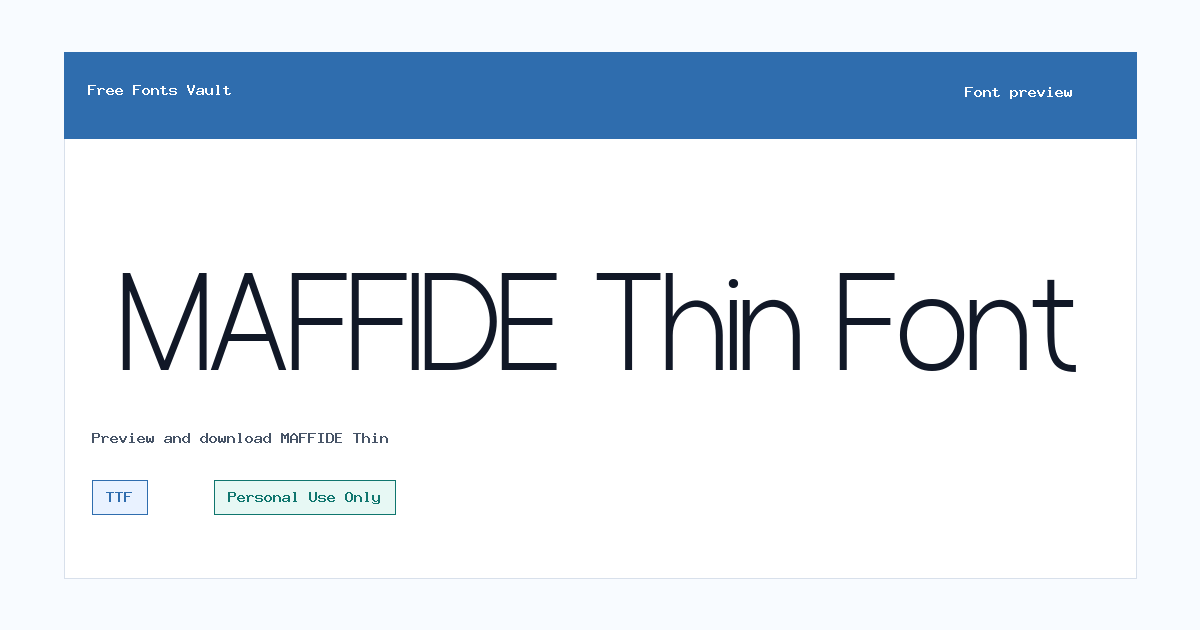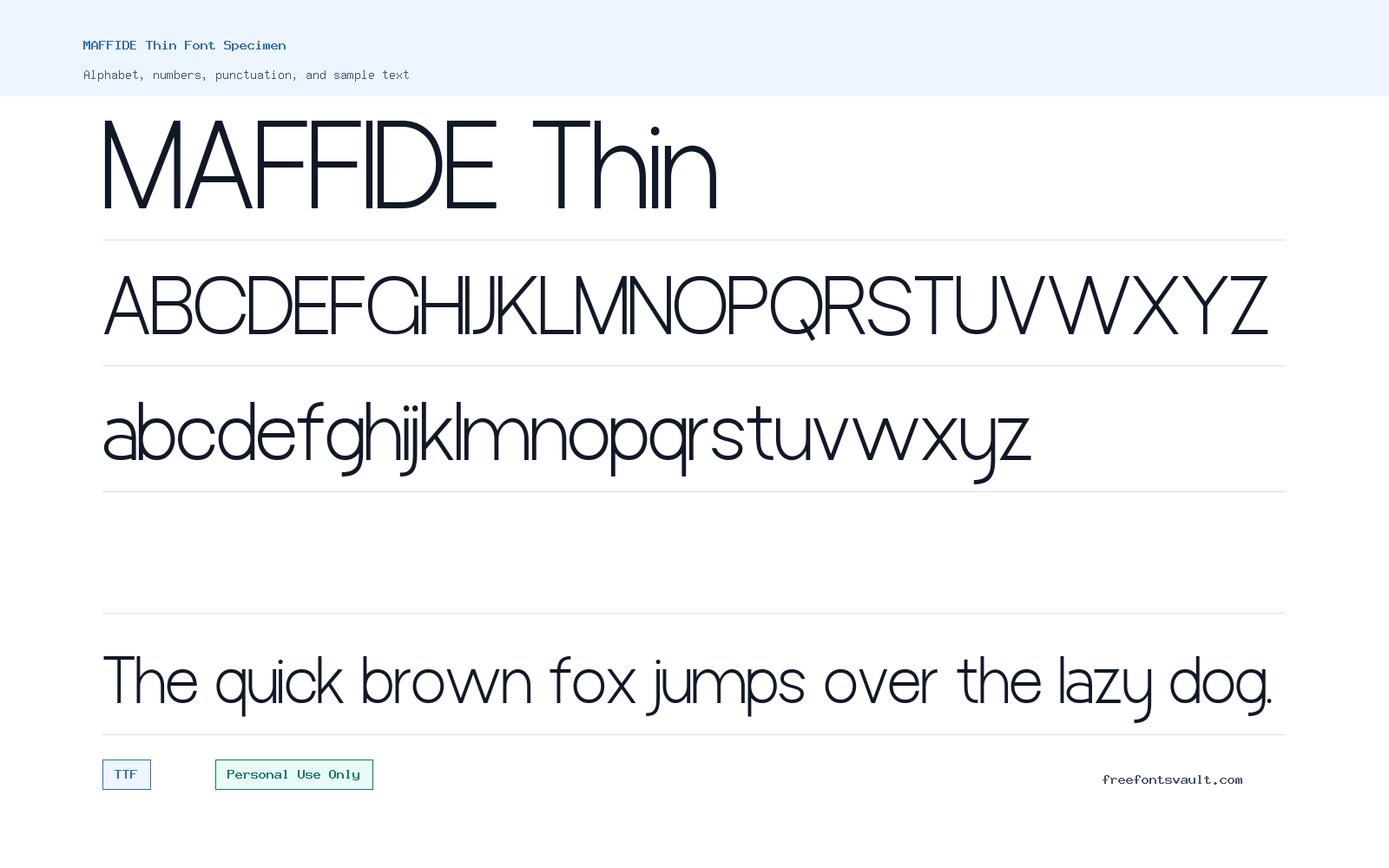
MAFFIDE Thin
MAFFIDE Thin font.
MAFFIDE Thin is a light sans serif font with a 100-weight style, made for clean display text, slim headings, and design experiments where a quiet, modern look works better than heavy lettering.
About MAFFIDE Thin
MAFFIDE Thin uses a thin sans serif style, so it is best approached as a display font rather than a workhorse text face. Its light weight can give titles, labels, and short phrases an airy look, especially when there is enough spacing around the words. Because the available file is a TTF font in a regular, normal-style cut, it should be easy to test in most design apps and font preview tools. The thin construction is useful when you want typography that feels neat and minimal without making the lettering the loudest part of the layout.
Use MAFFIDE Thin for short pieces of text first: logo drafts, poster titles, fashion-style headers, packaging mockups, quote graphics, social banners, website hero text, or clean editorial layouts. Thin fonts can lose clarity at small sizes, especially on busy backgrounds or low-resolution screens, so test the font in the preview with the exact words you plan to use. Try increasing letter spacing for all-caps titles, but avoid pushing the spacing so far that the word becomes hard to read. For longer text, pair MAFFIDE Thin with a stronger sans serif or a readable serif that can handle body copy.
In poster and web mockup design, the font’s thin weight can help create contrast against heavier elements. Place it beside bold photography, simple geometric shapes, or a heavier companion typeface to keep the layout balanced. If the design has a dark background, inspect the strokes carefully; very thin letters can look elegant at large sizes but may disappear when scaled down. On light backgrounds, give the text enough contrast and avoid placing it over detailed images unless you add a clean overlay or spacing around the type.
- Thin 100-weight sans serif style for clean headings, short display text, and minimal layout work.
- Best used at medium to large sizes where the slim strokes can stay clear and readable.
- Useful for personal-use mockups, logo drafts, posters, social graphics, and web hero typography.
- Personal logo concepts and brand-name mockups that need slim, simple lettering.
- Poster titles, event graphics, quote images, and clean editorial-style layouts.
- Website hero sections, landing page mockups, navigation concepts, and digital headers.
- Packaging drafts, fashion-style visuals, portfolio graphics, and presentation slides.
- Pairing with bolder sans serif fonts or readable body fonts to create contrast.
The designer is listed as FLAWLESSANDCO. No foundry or designer website is listed in the available font details.
What type of font is MAFFIDE Thin?
MAFFIDE Thin is a thin sans serif font. The available style is a regular, normal-style TTF file with a 100 font weight.
What is MAFFIDE Thin best used for?
It is best for short display typography such as logos drafts, poster headings, web mockups, social graphics, packaging concepts, and clean title designs.
Can I use MAFFIDE Thin for body text?
It is not the best choice for long paragraphs. The thin weight may become hard to read at small sizes, so use it mainly for larger headings or short text.
Who designed MAFFIDE Thin?
The designer is listed as FLAWLESSANDCO.
How should I pair MAFFIDE Thin with other fonts?
Pair it with a sturdier sans serif or a readable serif for body copy. Let MAFFIDE Thin handle the title or logo-style text, then use the companion font for smaller information.